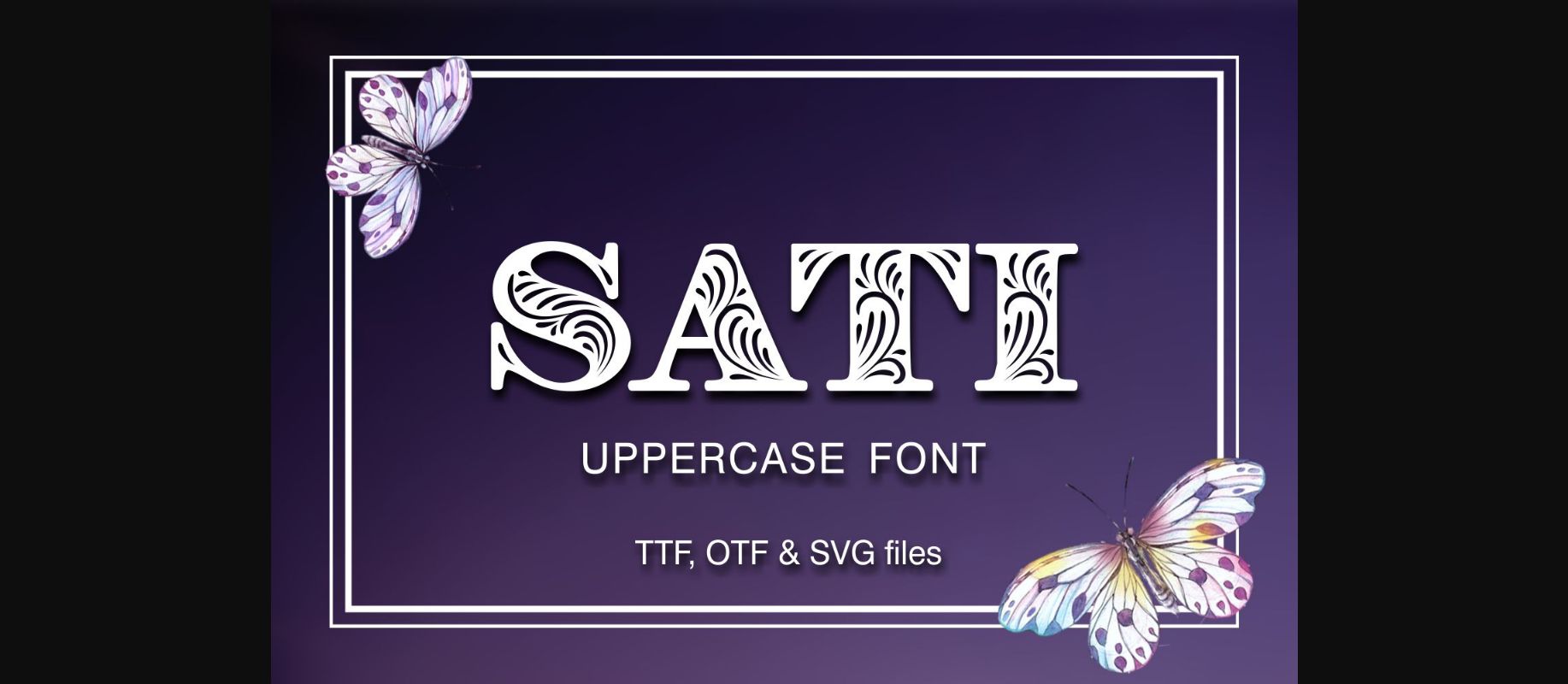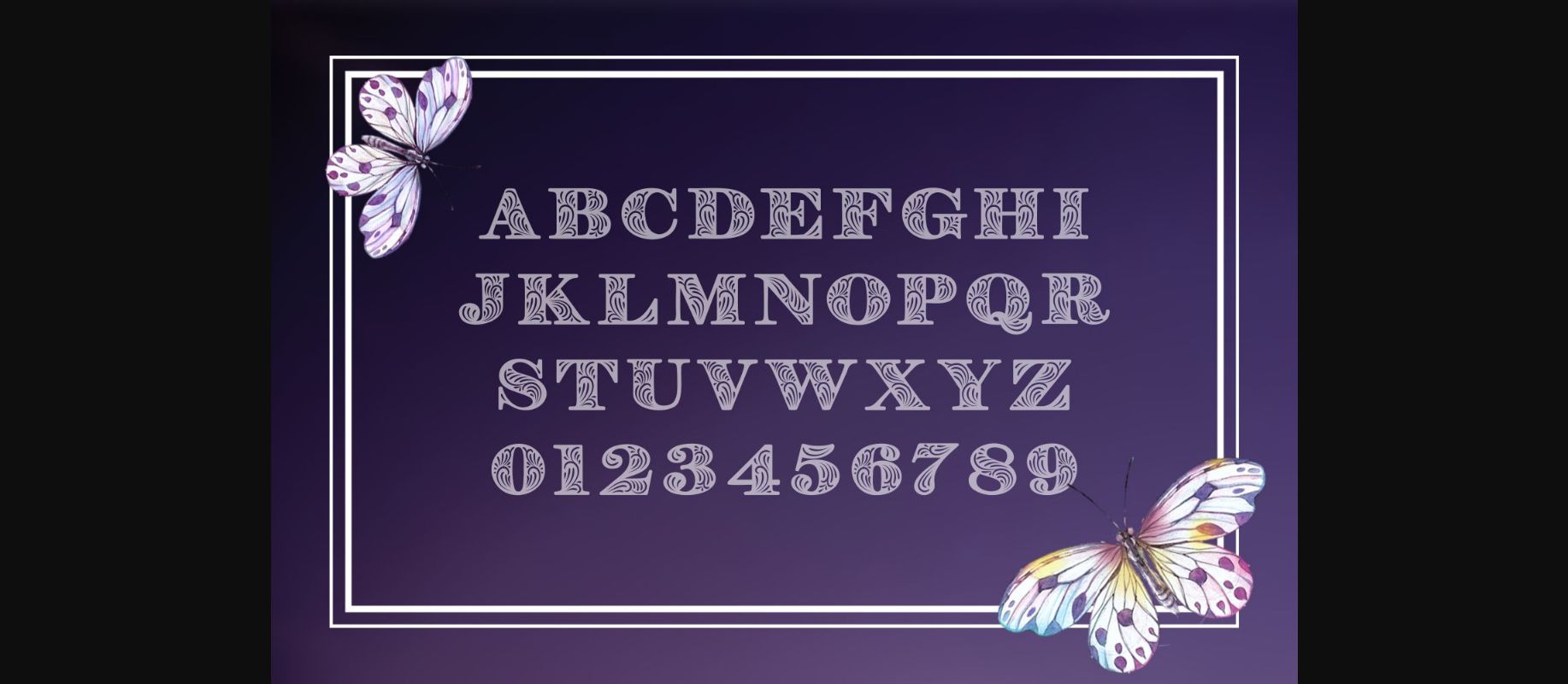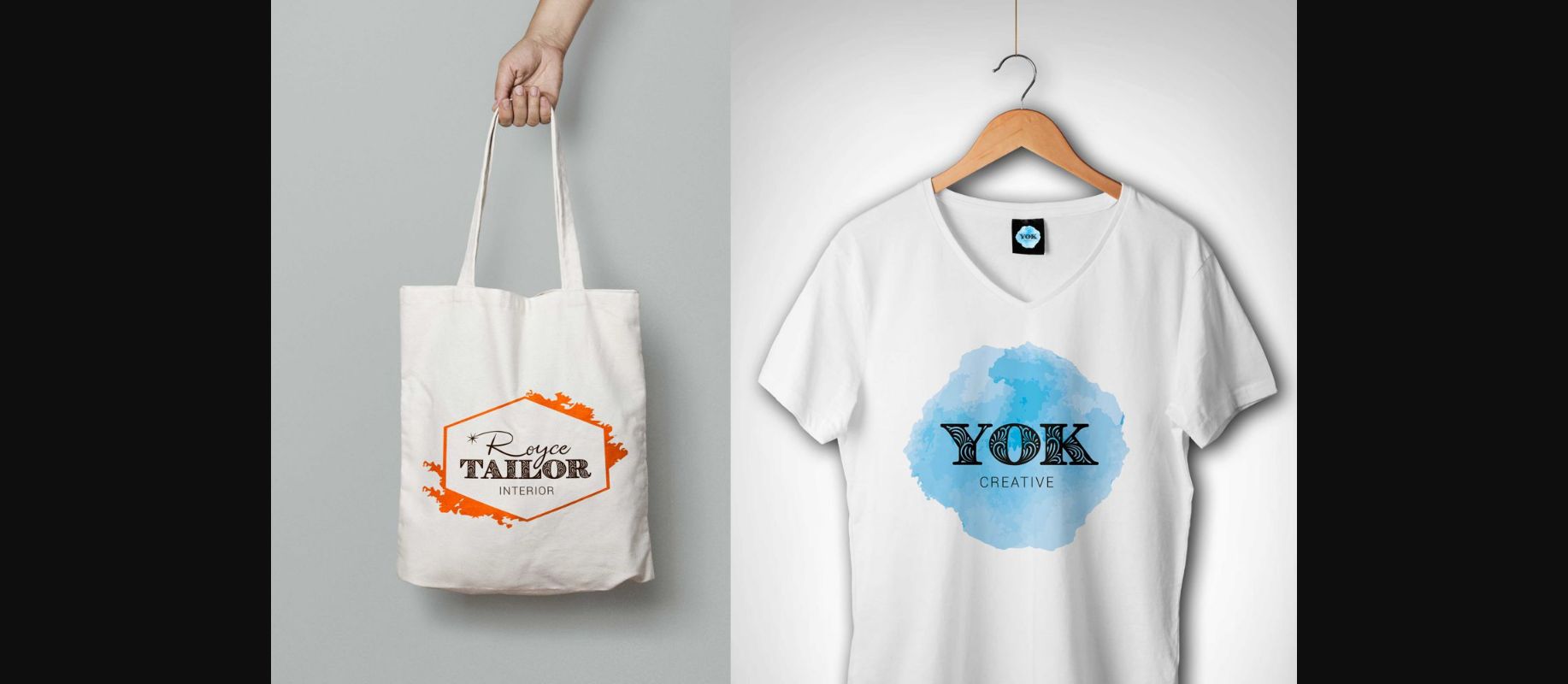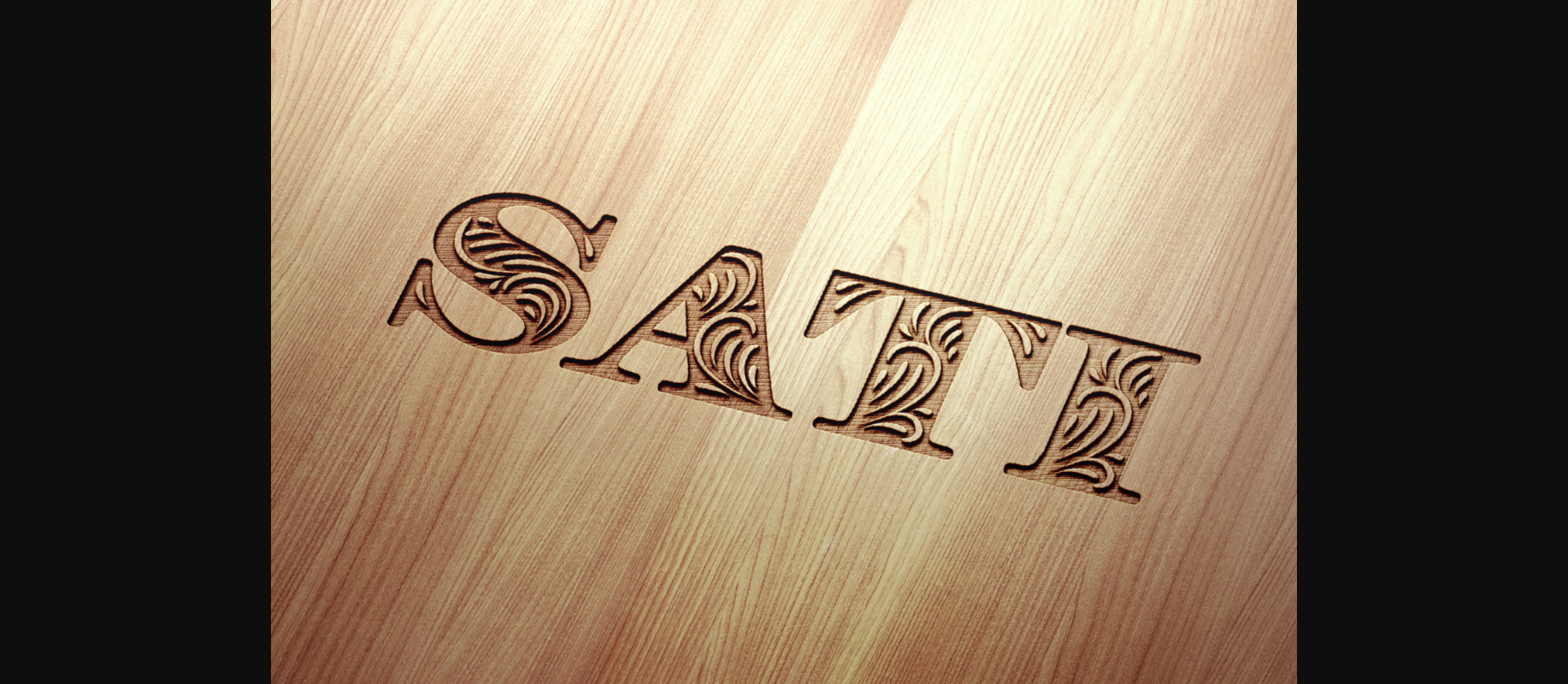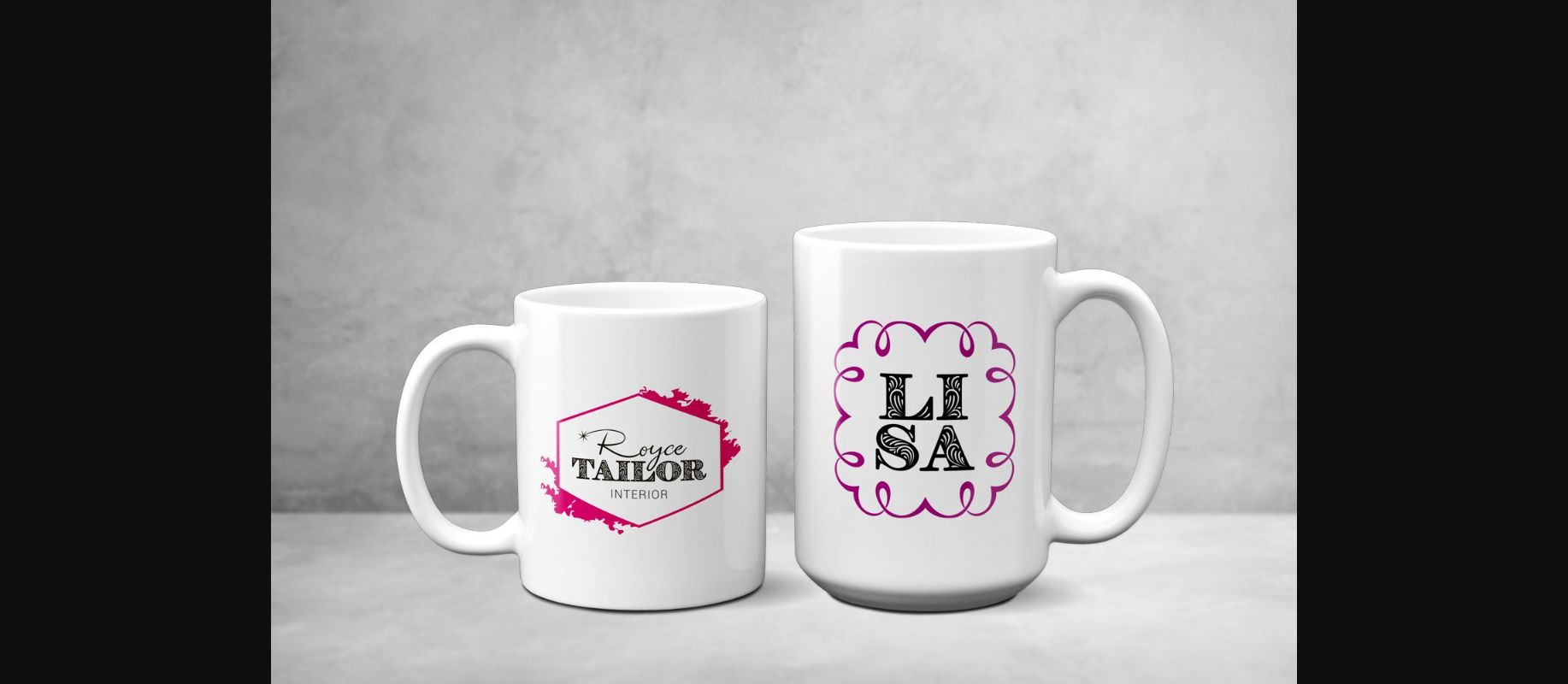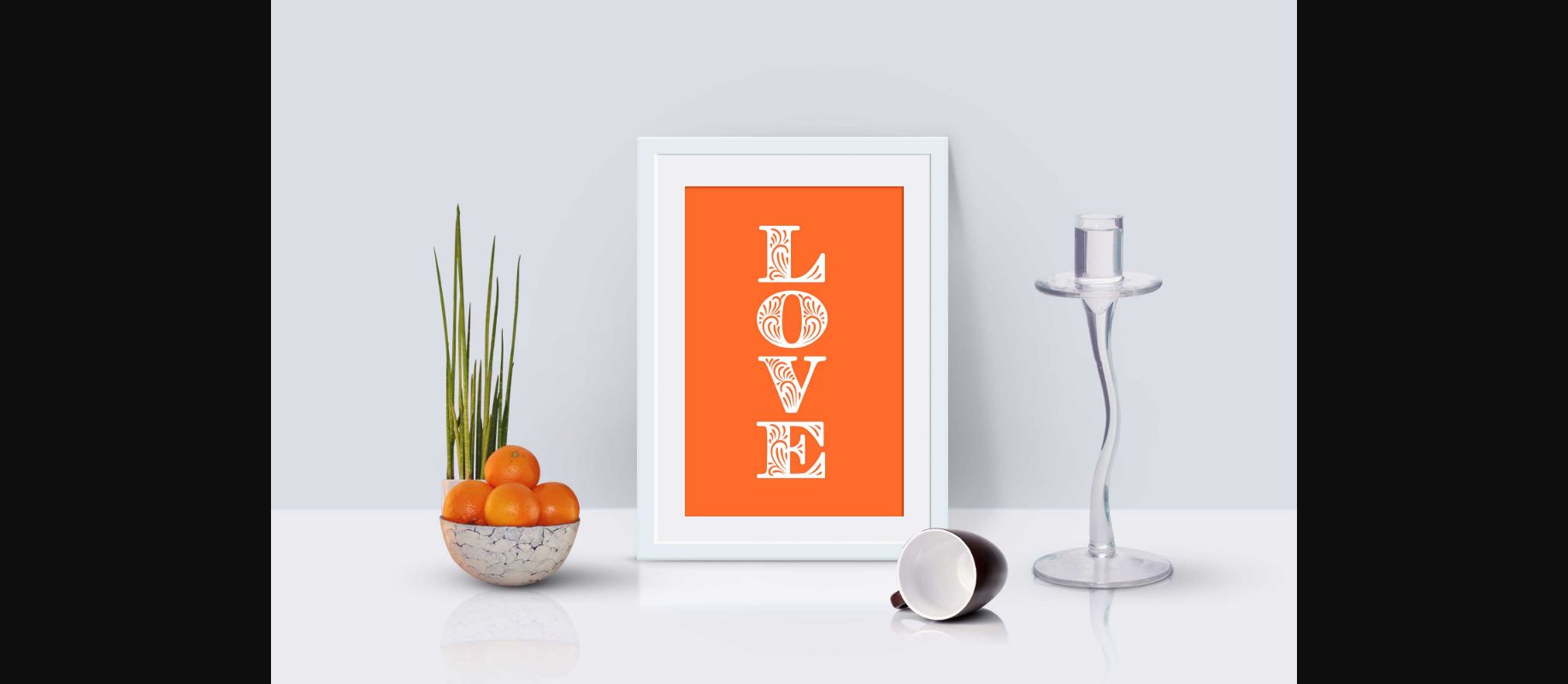
About Sati Font
Sati is a beautiful all caps decorative font. It will look outstanding in any context, whether itβs being used on busy backgrounds or as a standalone headline!